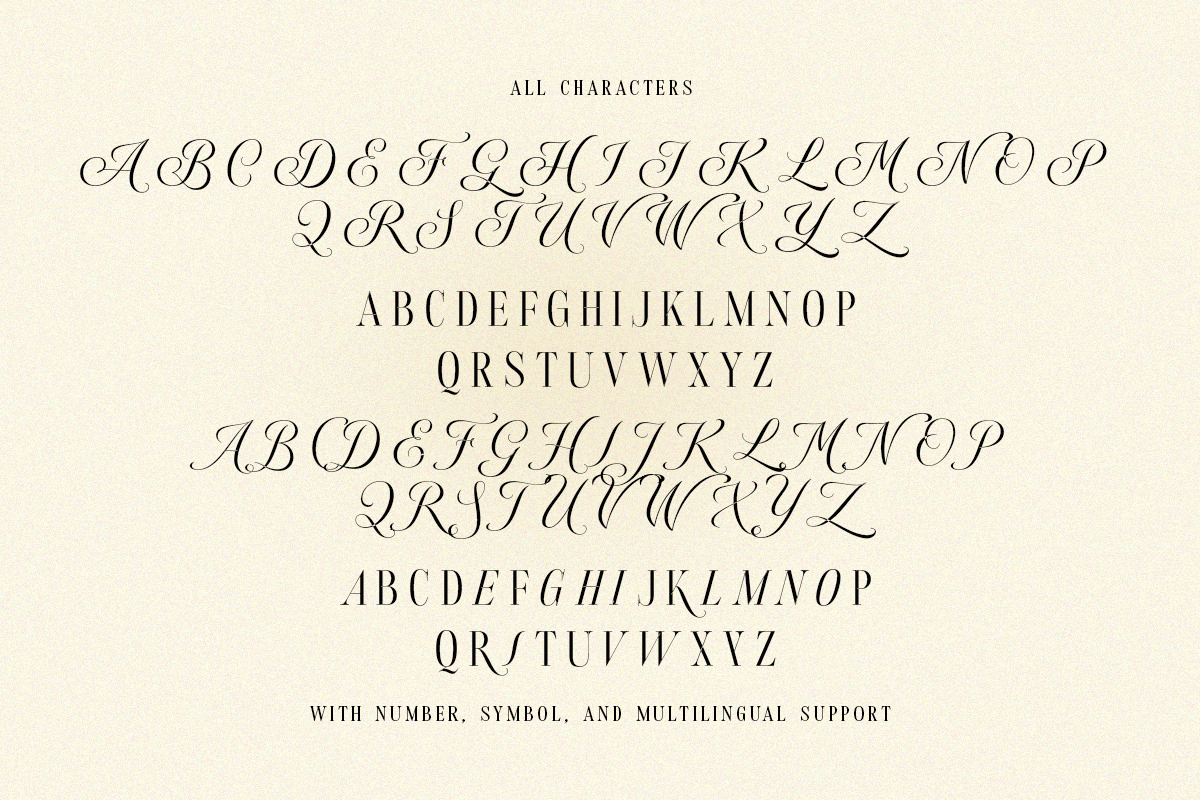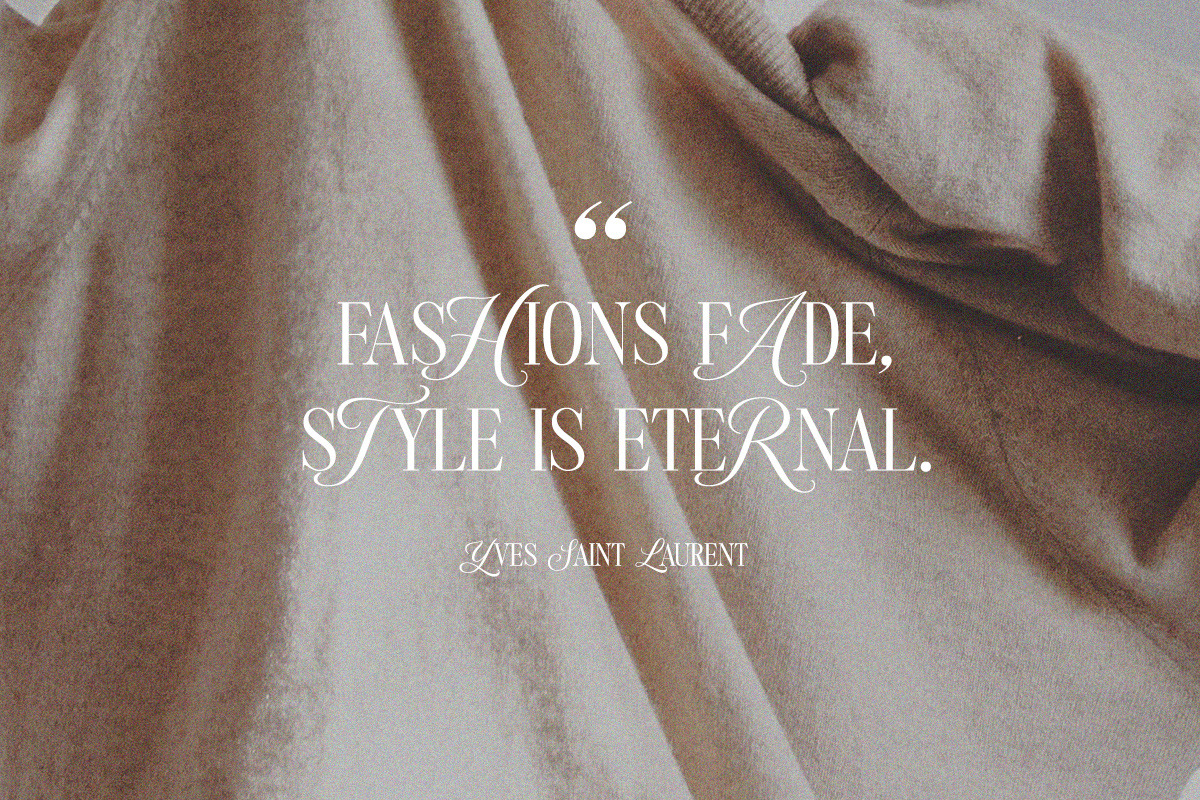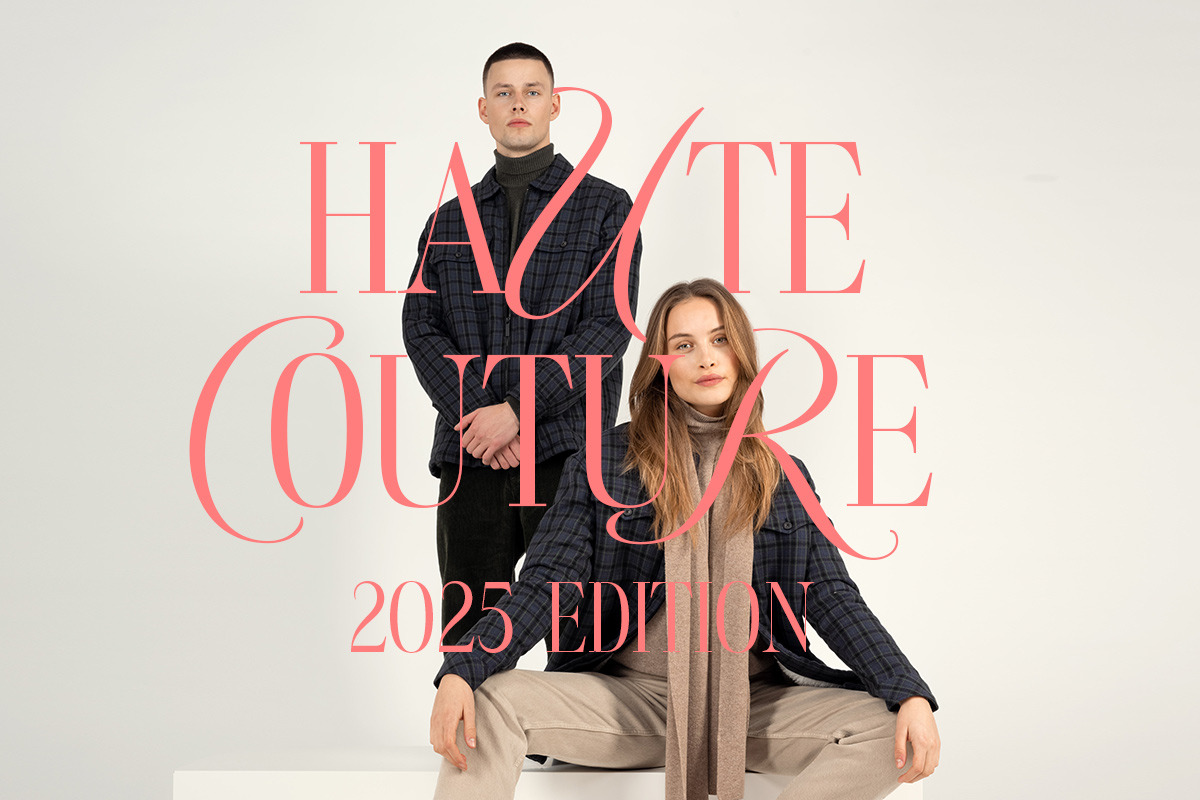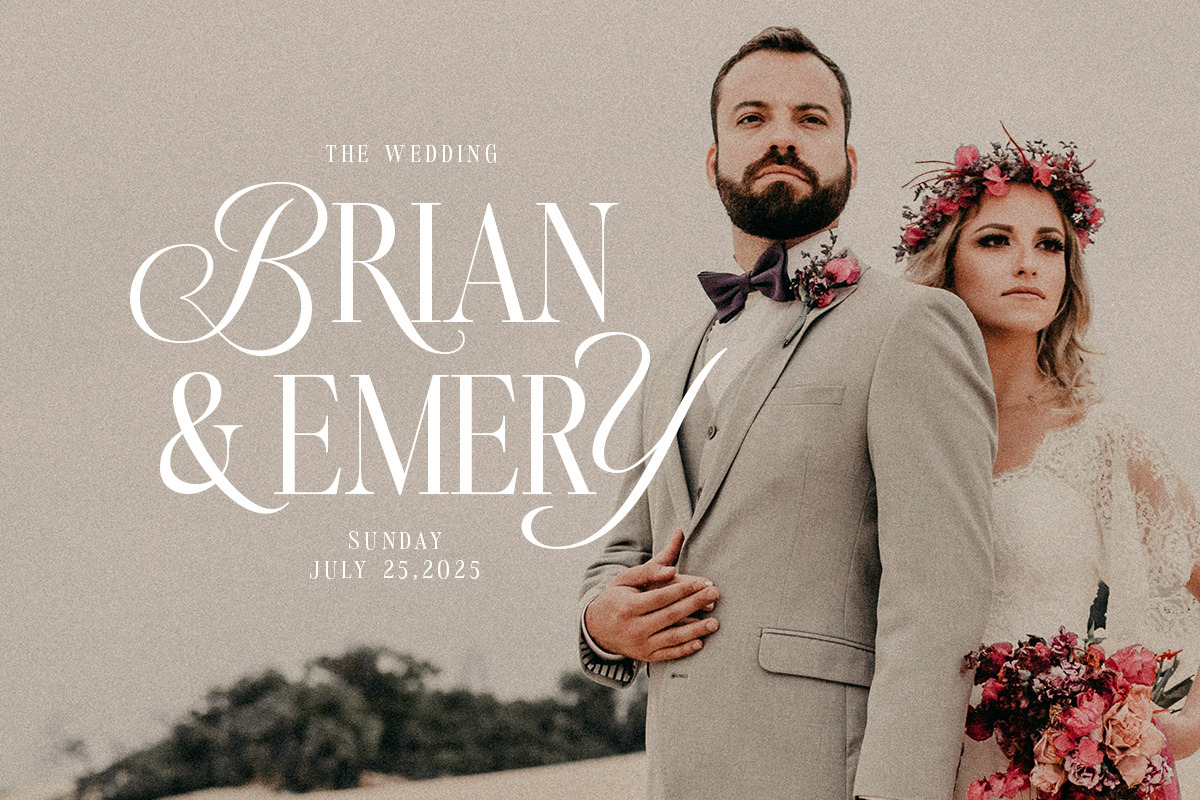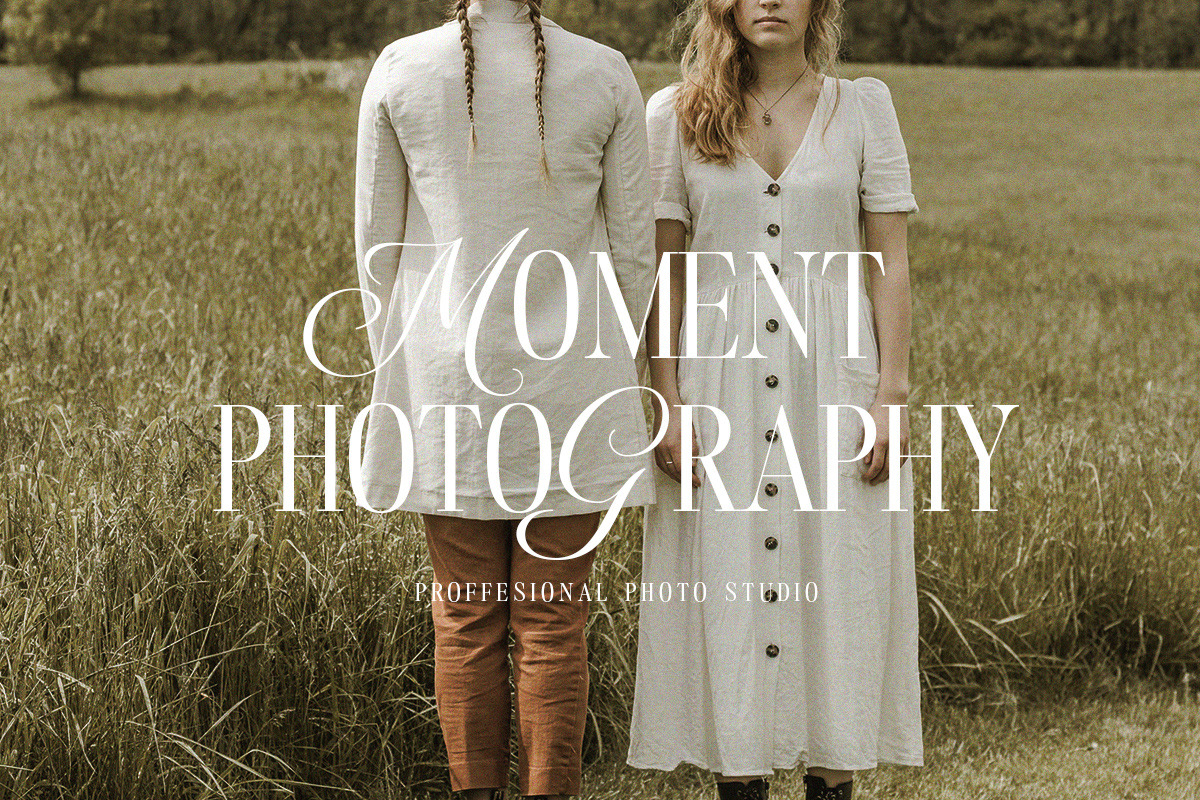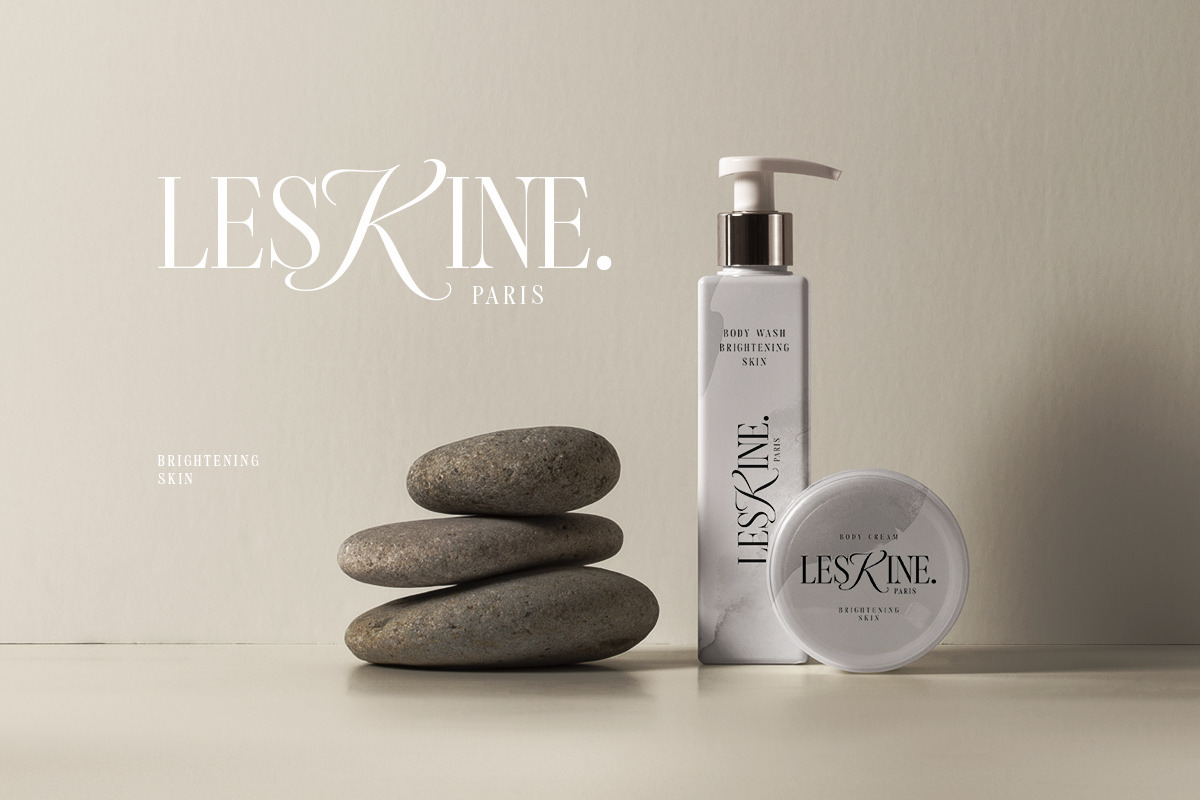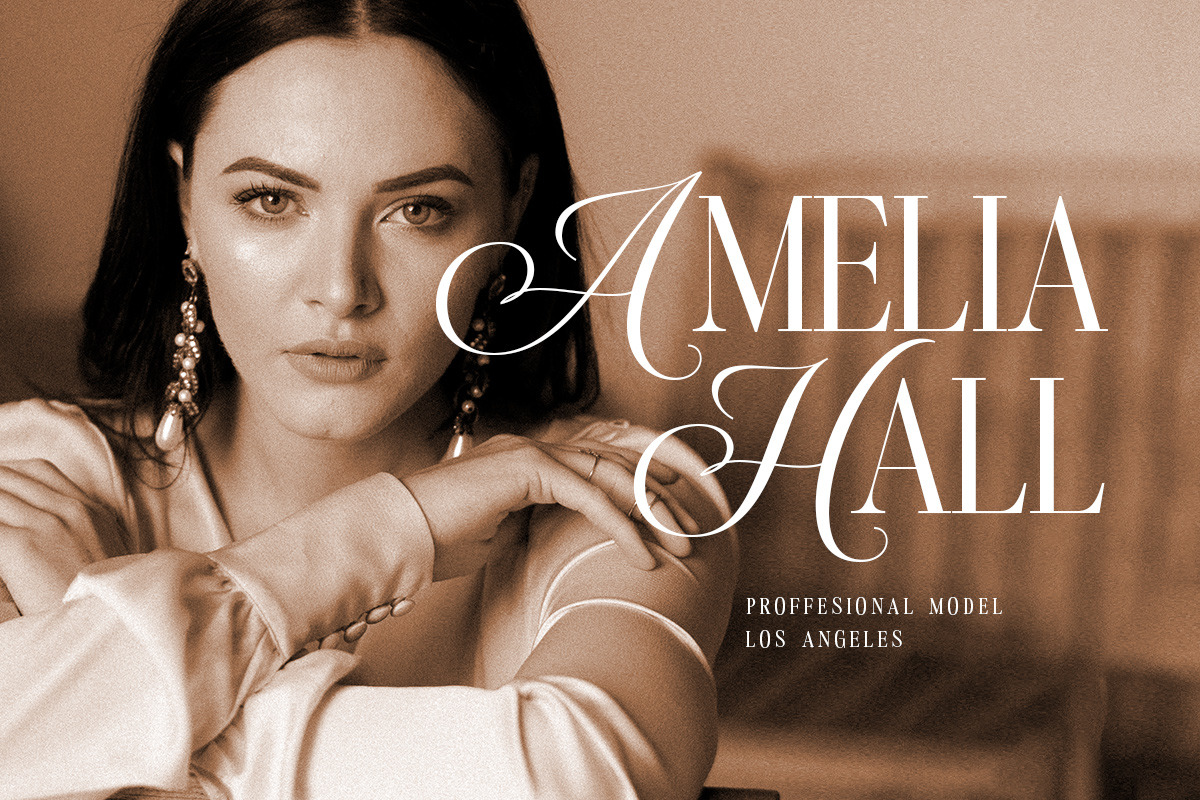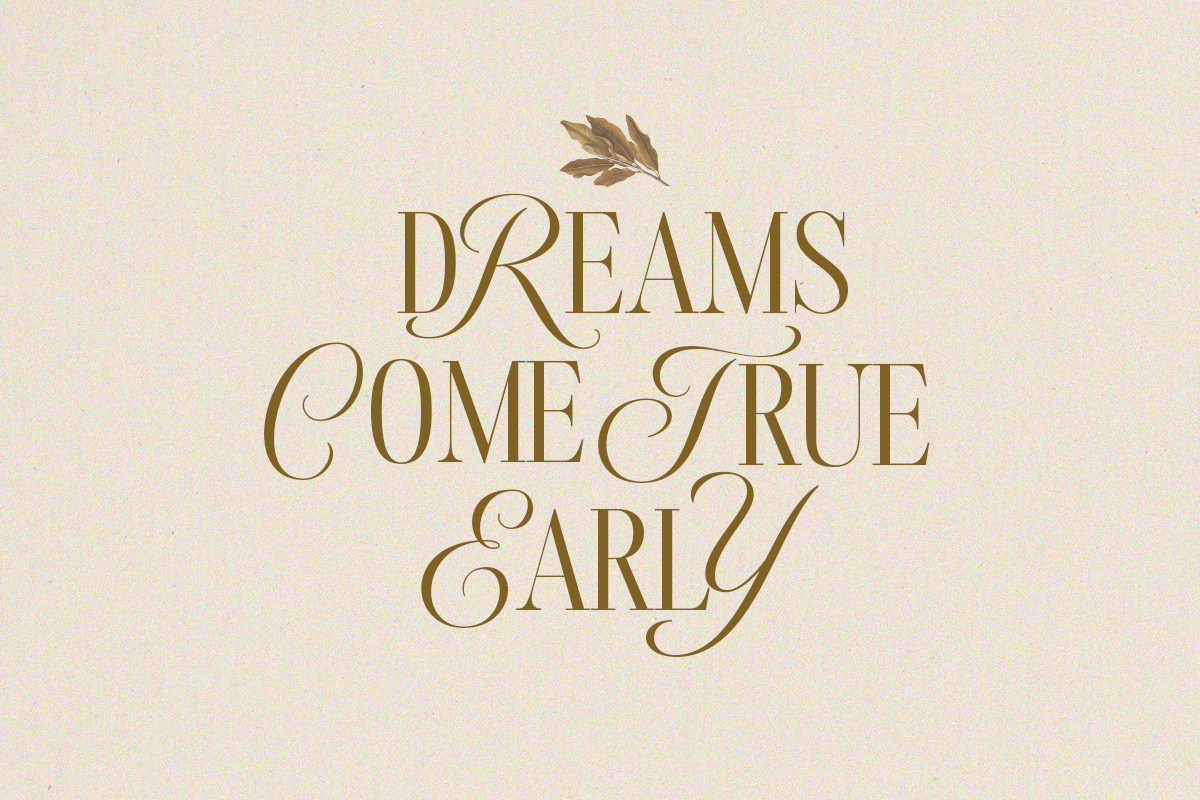
Androgy Display
Androgy Display is a sophisticated serif with two style in one font. It has unique combination with script uppercase and serif as the lowercase. Perfectly to be applied to the other various formal forms such as invitations, labels, logos, magazines, books, greeting / wedding cards, packaging, fashion, make up, stationery, novels, labels or any type of advertising purpose.
- Two style in one font
- alternates